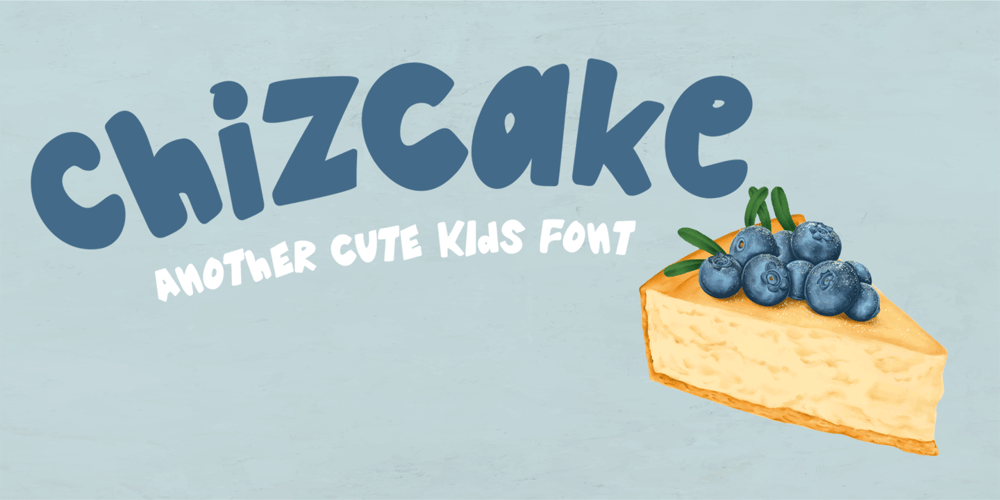
Chizcake Font Family was designed by Doli Harahap and published by Tigade Std. Chizcake contains 1 styles and family package options. Chizcake. Do you love random shape thick font? This font is cuteness overload. It is for everyone, for various design purpose.This font is suitable for happy theme, cute, party, holiday, kids and many more. It is also suitable for Logo, Cards, Branding, Social Media, Youtube Thumbnail, Advertisement, Posters, any many others.Features:– Standard Characters (Uppercase and Lowercase)– Numerals– Punctuation– International Characters